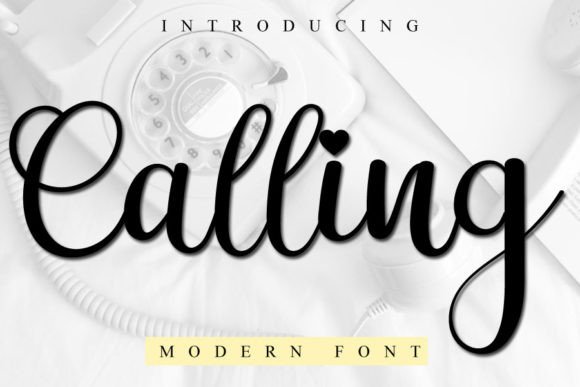
Calling Font
**Calling Font: The Quintessential Script for Captivating Logos**
Introducing Calling Font, the captivating script font meticulously crafted to evoke a sense of warmth and sophistication in your designs. This enchanting font exudes a timeless elegance that transcends fleeting trends, ensuring that your creations remain effortlessly stylish for years to come.
Indulge in the versatility of Calling Font, a masterful script that effortlessly adapts to a myriad of projects. Whether you seek to create a captivating logo that leaves an unforgettable impression, design enchanting invitations that evoke a sense of occasion, or craft enchanting social media graphics that captivate your audience, Calling Font is your font of choice.
Calling Font is the brainchild of the renowned designer ABBAsalam, whose passion for typography shines through in every meticulously crafted curve and stroke. This font is not merely a collection of letters; it is an exquisite masterpiece, designed to elevate your creations to new heights of visual appeal.
**Why Choose Calling Font?**
- **Unleash Your Creativity:** Calling Font's boundless versatility empowers you to unleash your creativity and explore endless design possibilities. Let your imagination soar as you craft designs that exude elegance, charm, and a touch of whimsy.
- **Make a Lasting Impression:** In a world saturated with content, your logo is your chance to make a lasting impression. Calling Font's captivating curves and alluring style will ensure that your logo stands out from the crowd, leaving a memorable imprint on the minds of your audience.
- **Elevate Your Invitations:** Transform your invitations into exquisite works of art with Calling Font. Its graceful strokes and sophisticated style will add a touch of enchantment to your special occasions, creating a lasting impression on your guests.
- **Captivate on Social Media:** Engage your social media audience with captivating graphics designed with Calling Font. Its eye-catching curves and charming style will effortlessly draw attention to your posts, ensuring that your message reaches a wider audience.